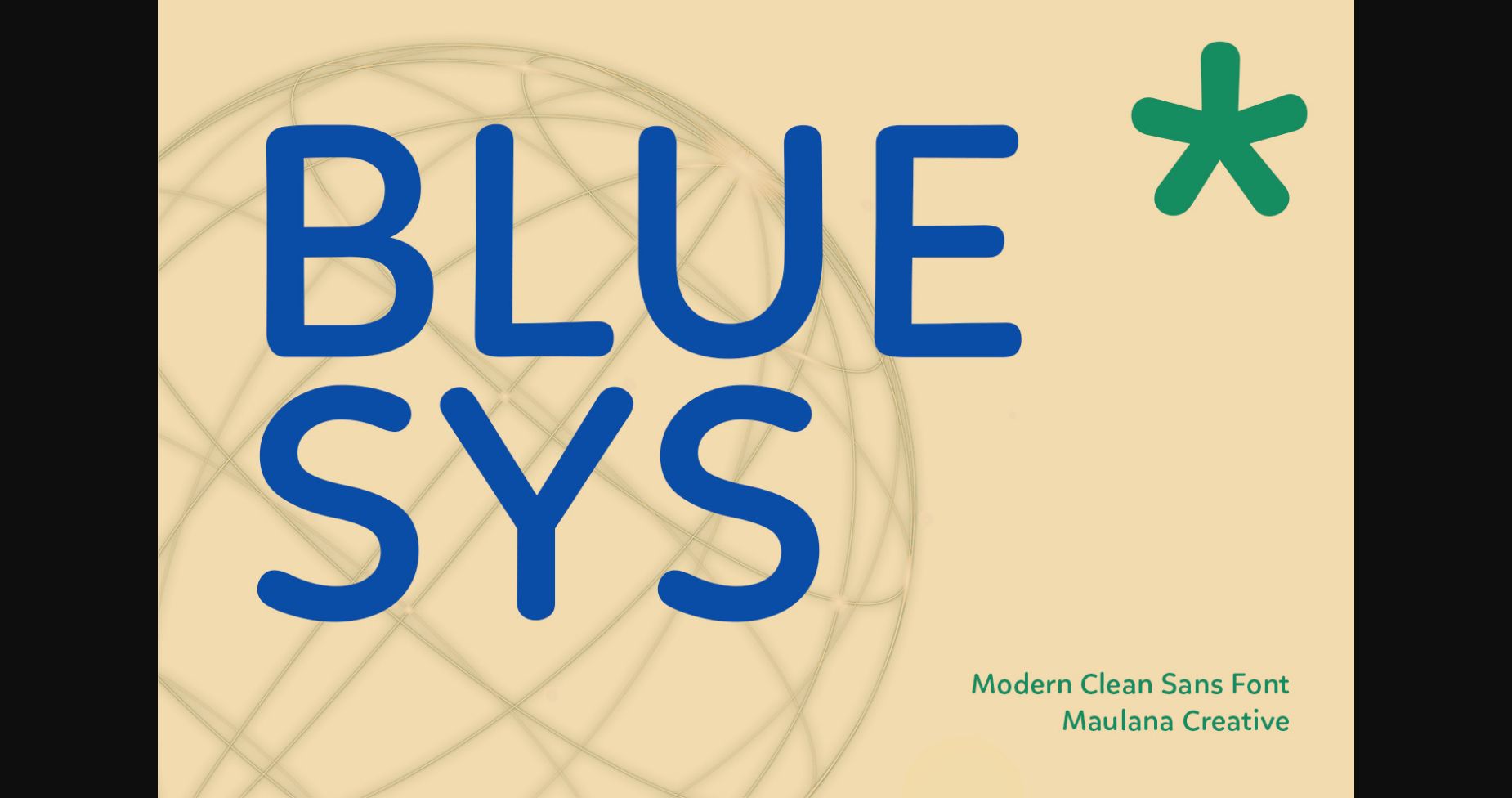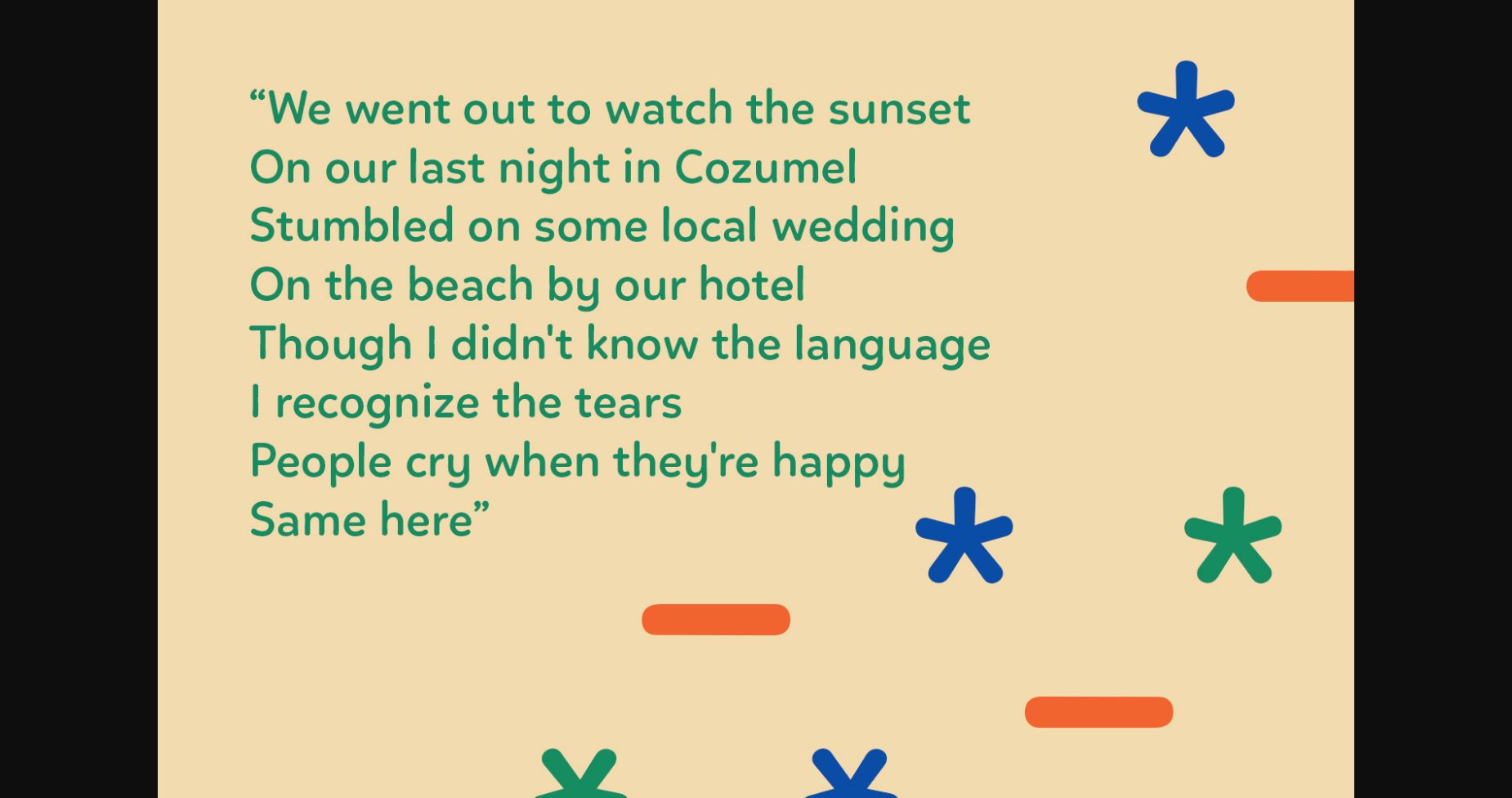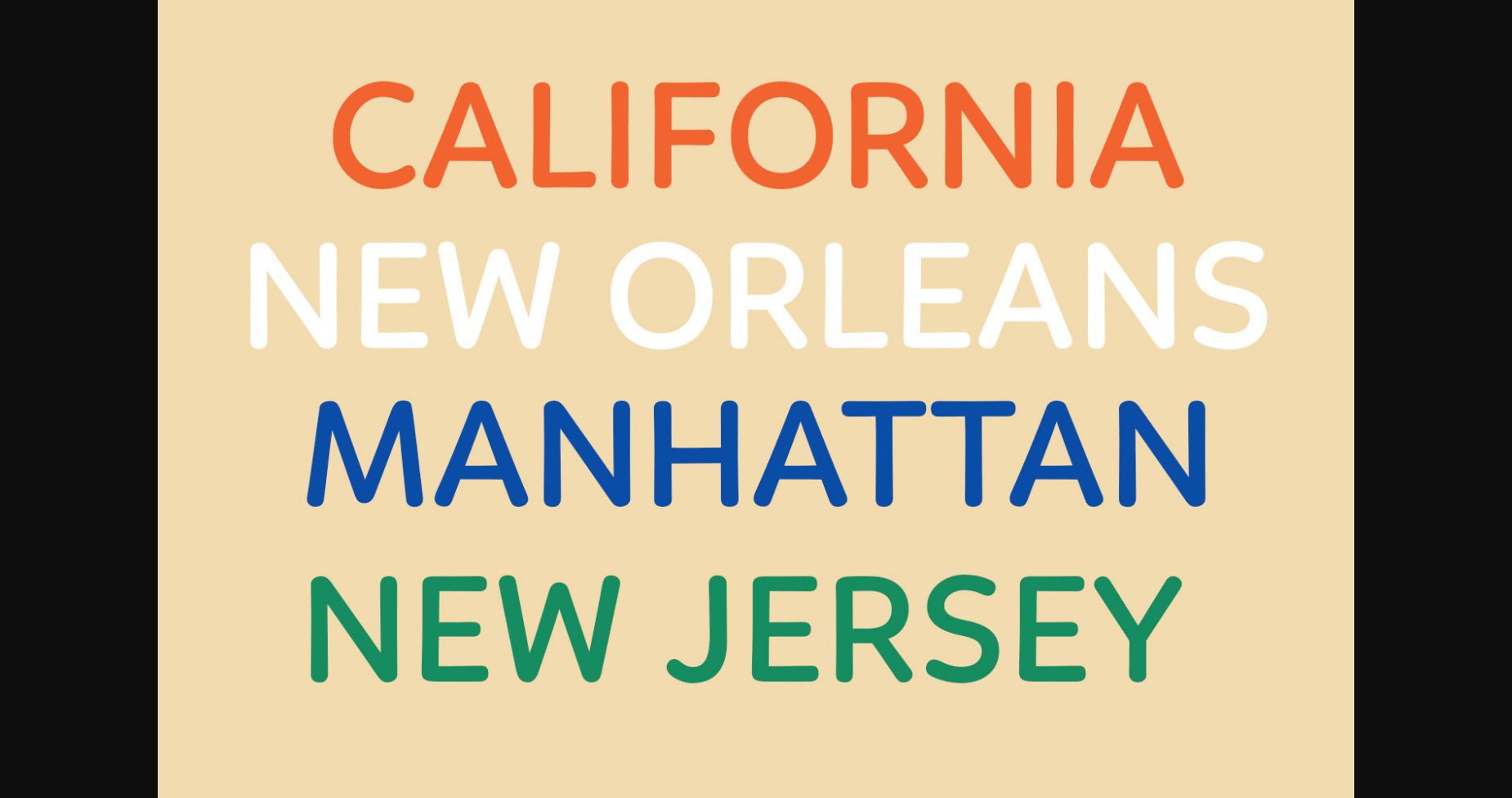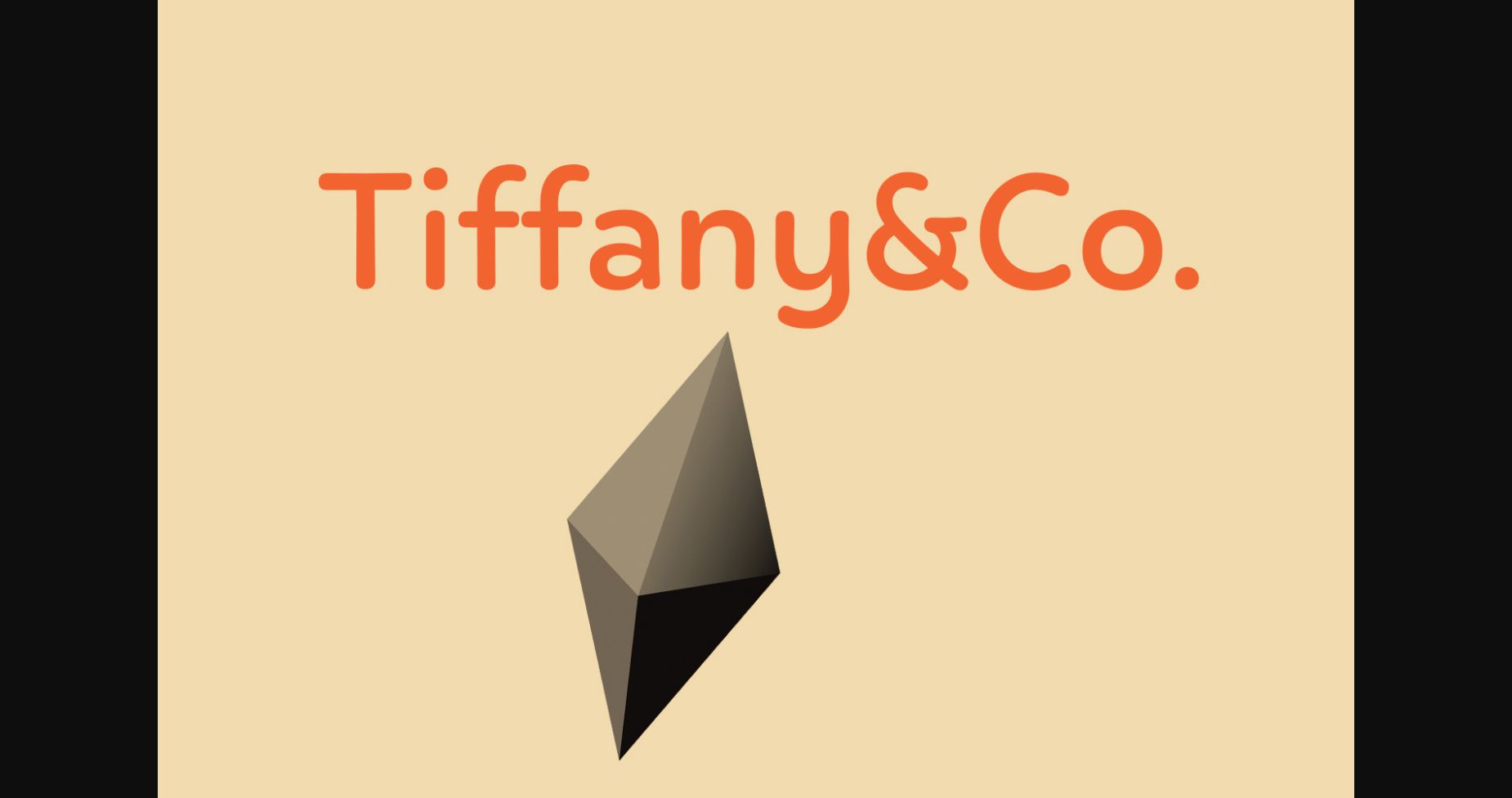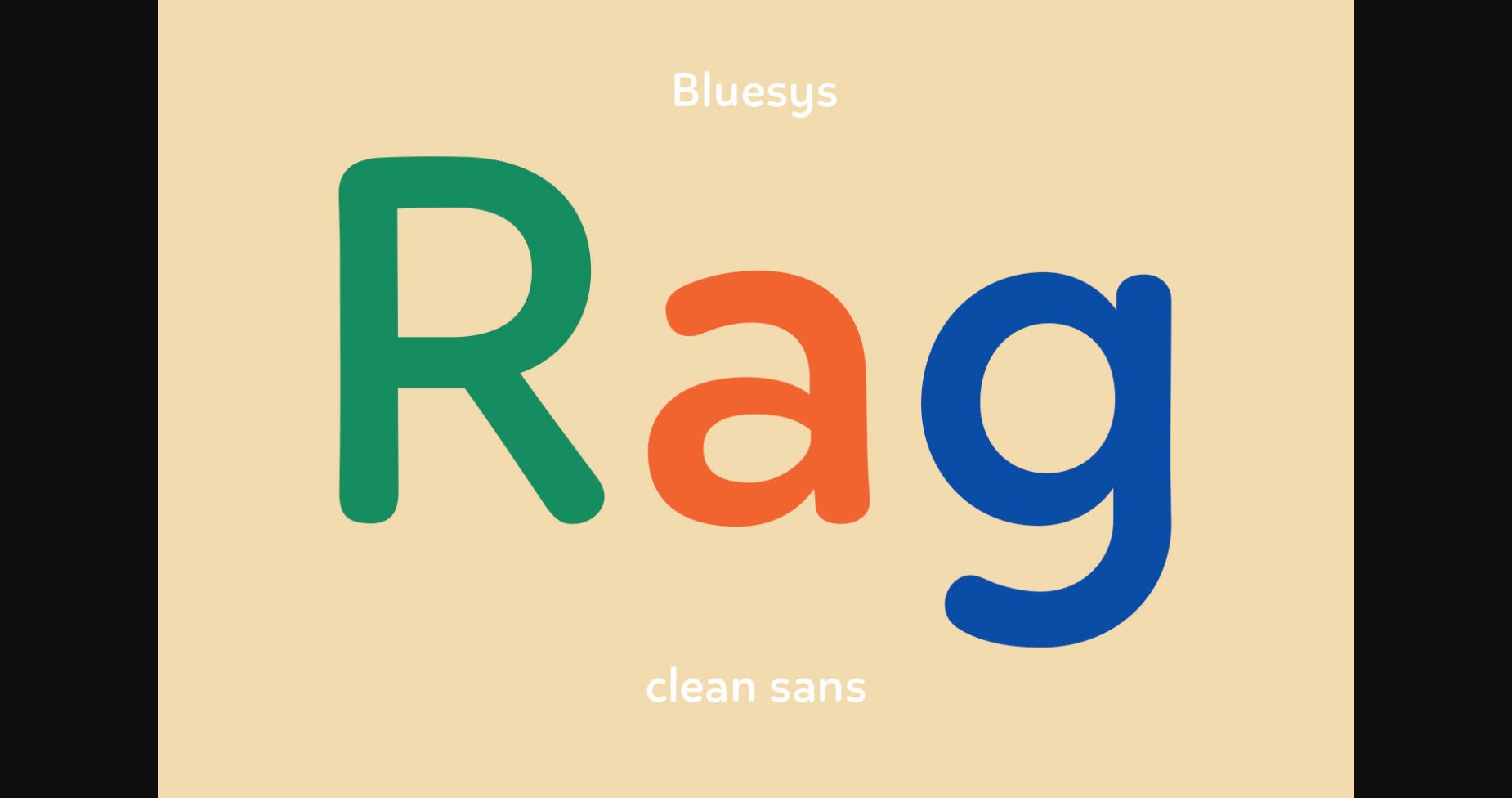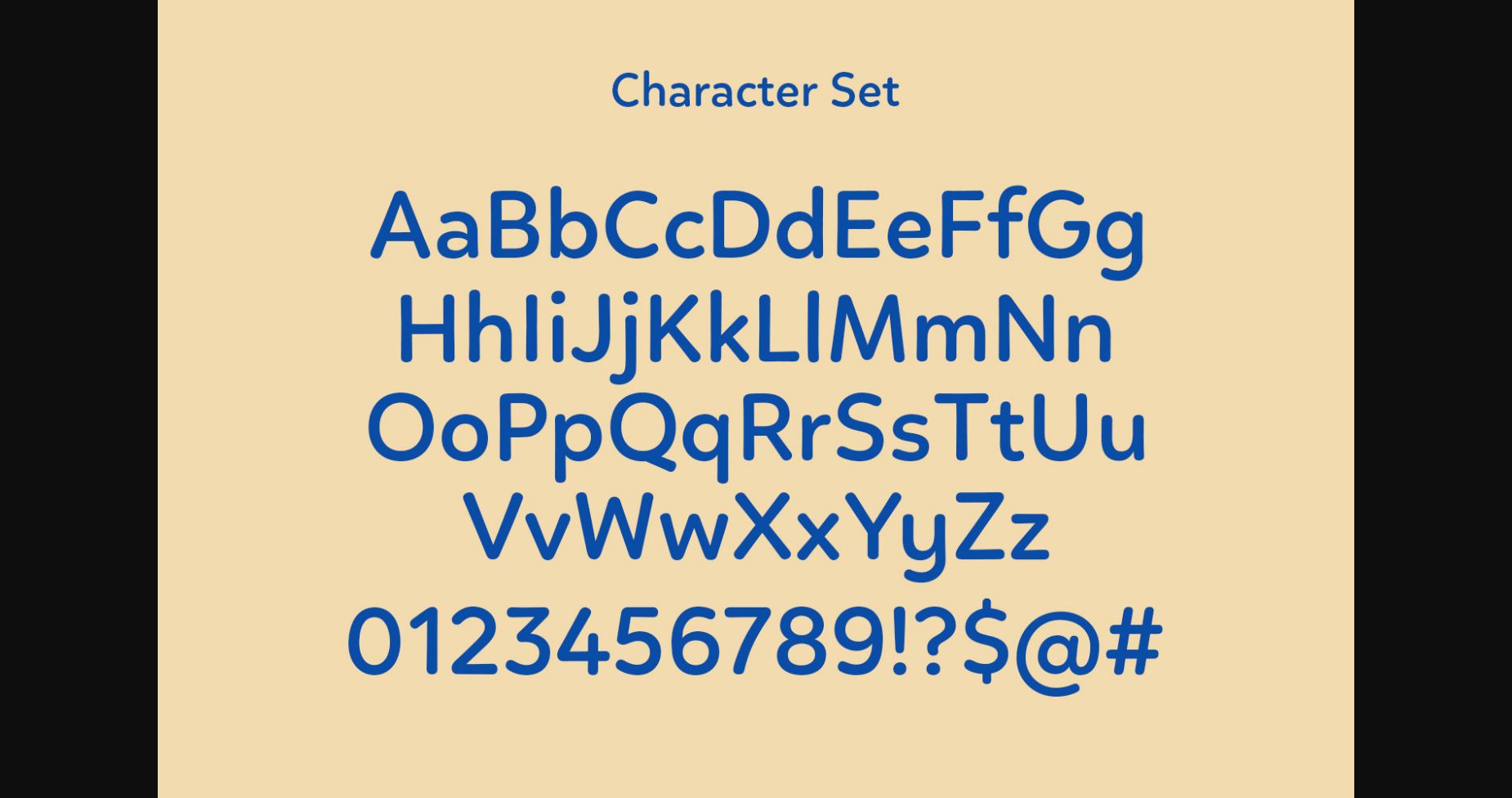
About Bluesys Font
Bluesys is a modern light clean sans serif font. Light stroke, fun character with a bit of ligatures and alternates. This font is good for logo design, Social media, Movie Titles, Books Titles, short text even long text letters, and is good for your secondary text font with script or serif. Make a stunning work with Bluesys font.